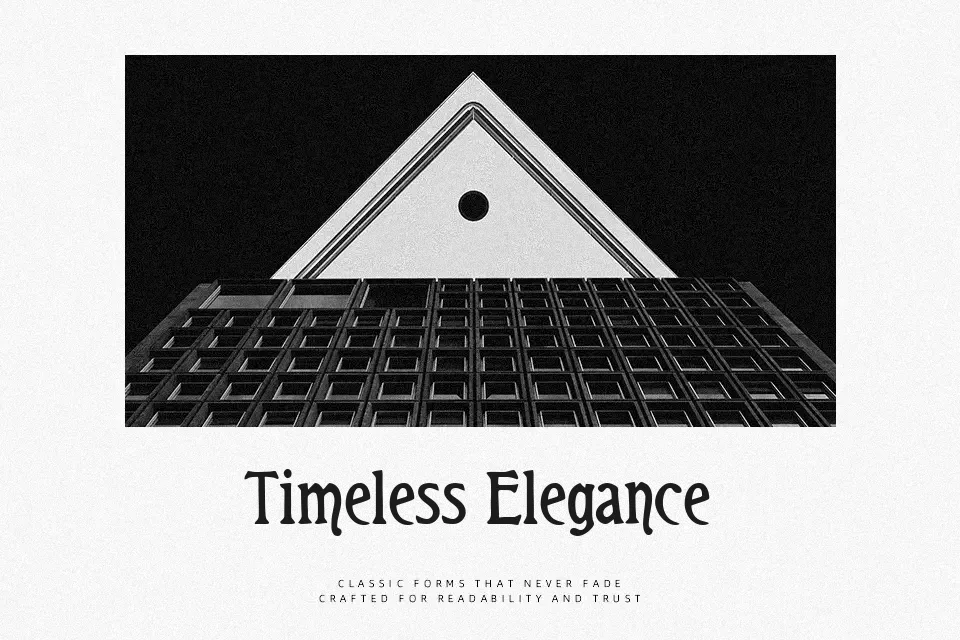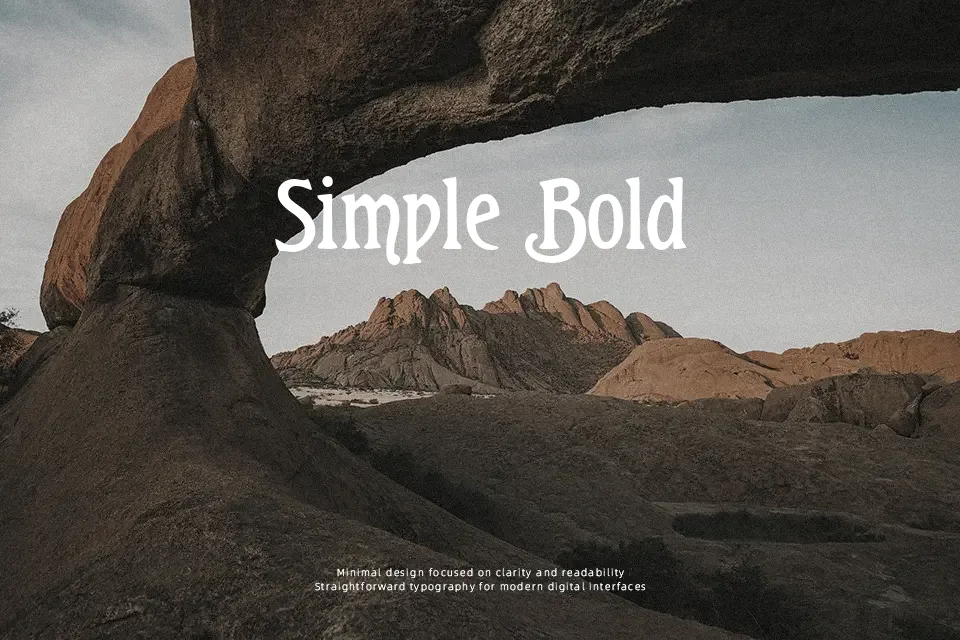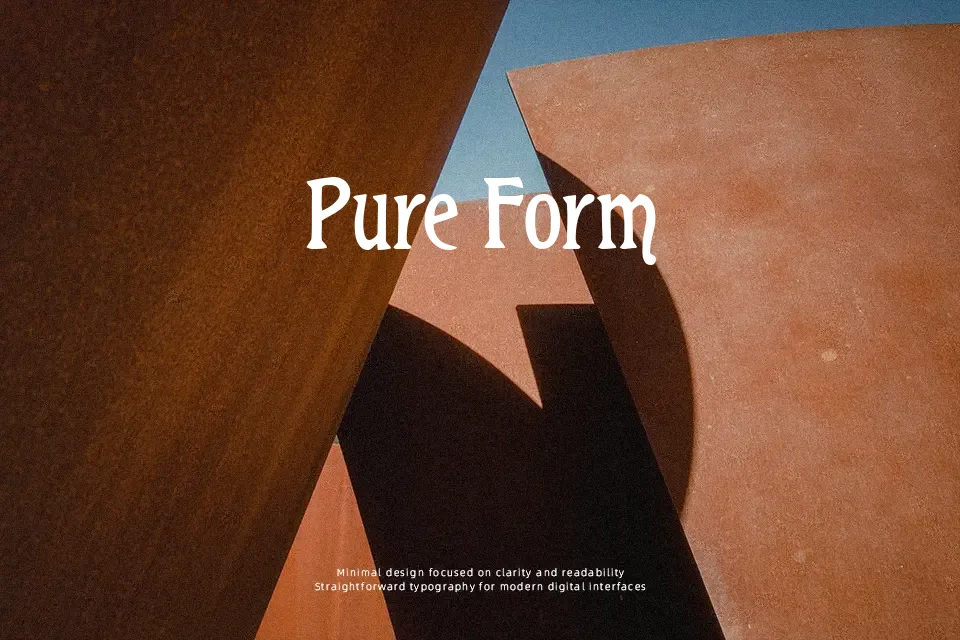
Teutonic Font
Designed by Peter Wiegel
Teutonic Font combines heavy bracketed serifs with pronounced stroke contrast and tight character spacing across its structured letterforms. The typeface exhibits angular terminals and robust geometric proportions that preserve immediate legibility when set at substantial display scales. Balanced uppercase characters command strong visual presence, while the sturdy lowercase rhythm supports compact title arrangements. Dense character shapes and robust weight reduce reading comfort across prolonged editorial compositions, making the design less effective for continuous paragraph settings. The font performs best when showcased in prominent hero titles, historical branding assets, or atmospheric promotional banners where its sharp antique presence commands immediate viewer attention.
Best For: historical fantasy book titles, craft brewery packaging labels, vintage event promotional posters, tabletop roleplaying game headers
Not Ideal For: continuous editorial paragraph text, small user interface captions, mobile app navigation labels, dense spreadsheet data